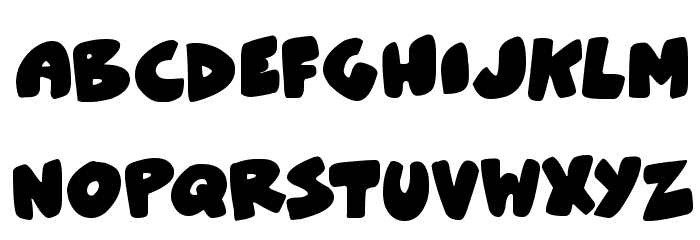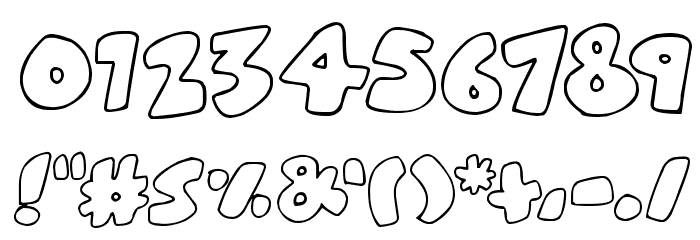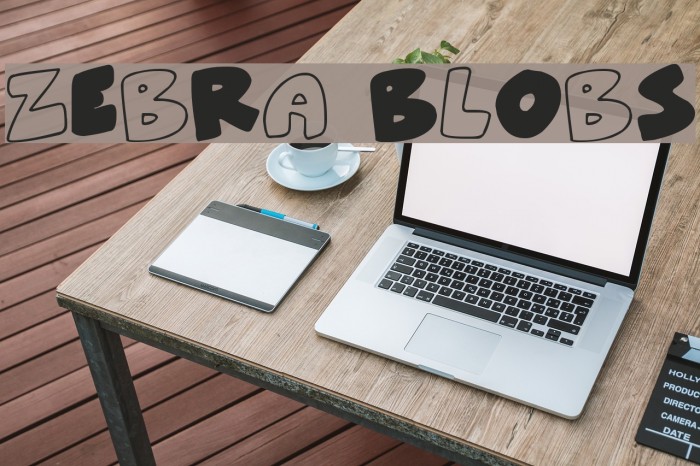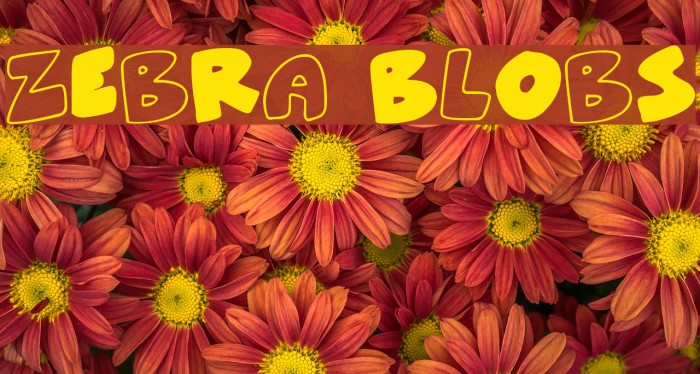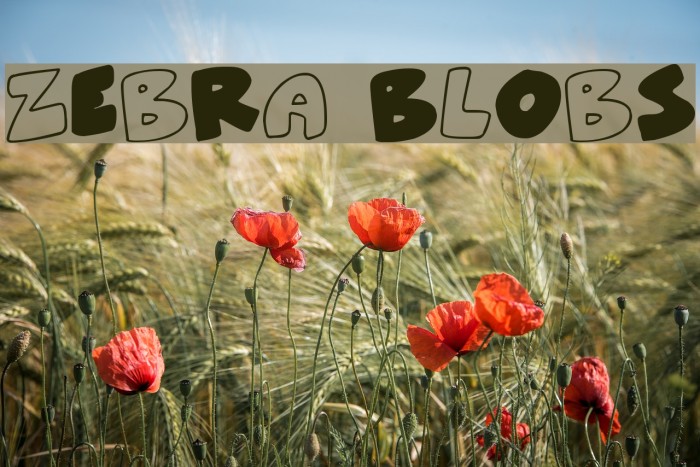
ZeBrA bLoBs Font
This playful and bold font features a bubbly, rounded design that exudes a sense of fun and creativity. The characters are thick and slightly irregular, giving them a hand-drawn appearance that adds a whimsical touch. The uppercase and lowercase letters maintain a consistent style, with smooth curves and a friendly demeanor. The numbers and special characters follow the same design principles, ensuring a cohesive look across all elements. This font is ideal for projects that require a lively and informal tone, such as children's books, party invitations, or playful branding.
A playful, bubbly font with a bold, hand-drawn appearance.
- Proposed Projects: Children's books, party invitations, playful branding, and creative posters.
- Width: Expanded
- Overall Style: Playful, Whimsical